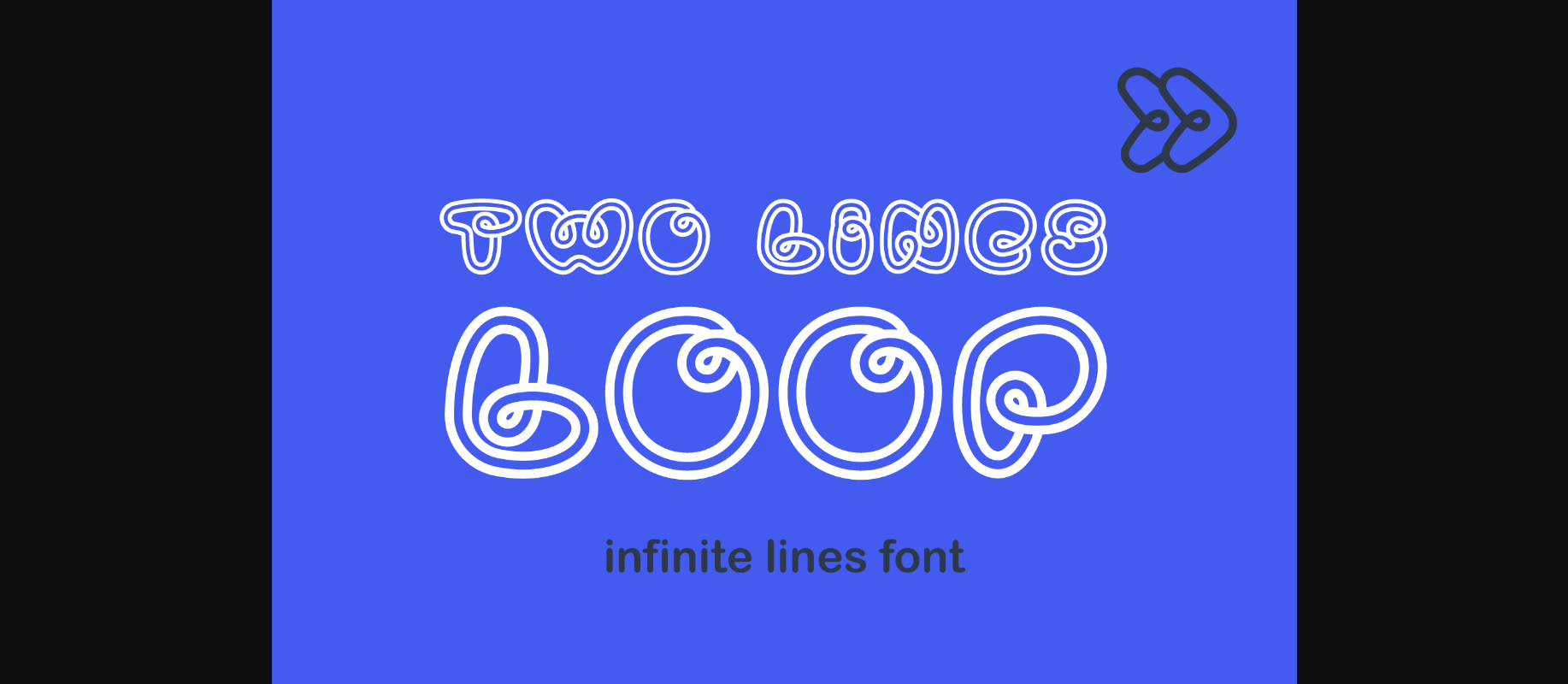
About Two Lines Loop Font
Two Lines Loop is a lovely decorative font featuring an alphabet set made of two white parallel lines. They look like infinite looped icons, ideal for dynamic apps, minimalism designs, sports identities, technology advertisements, and others.